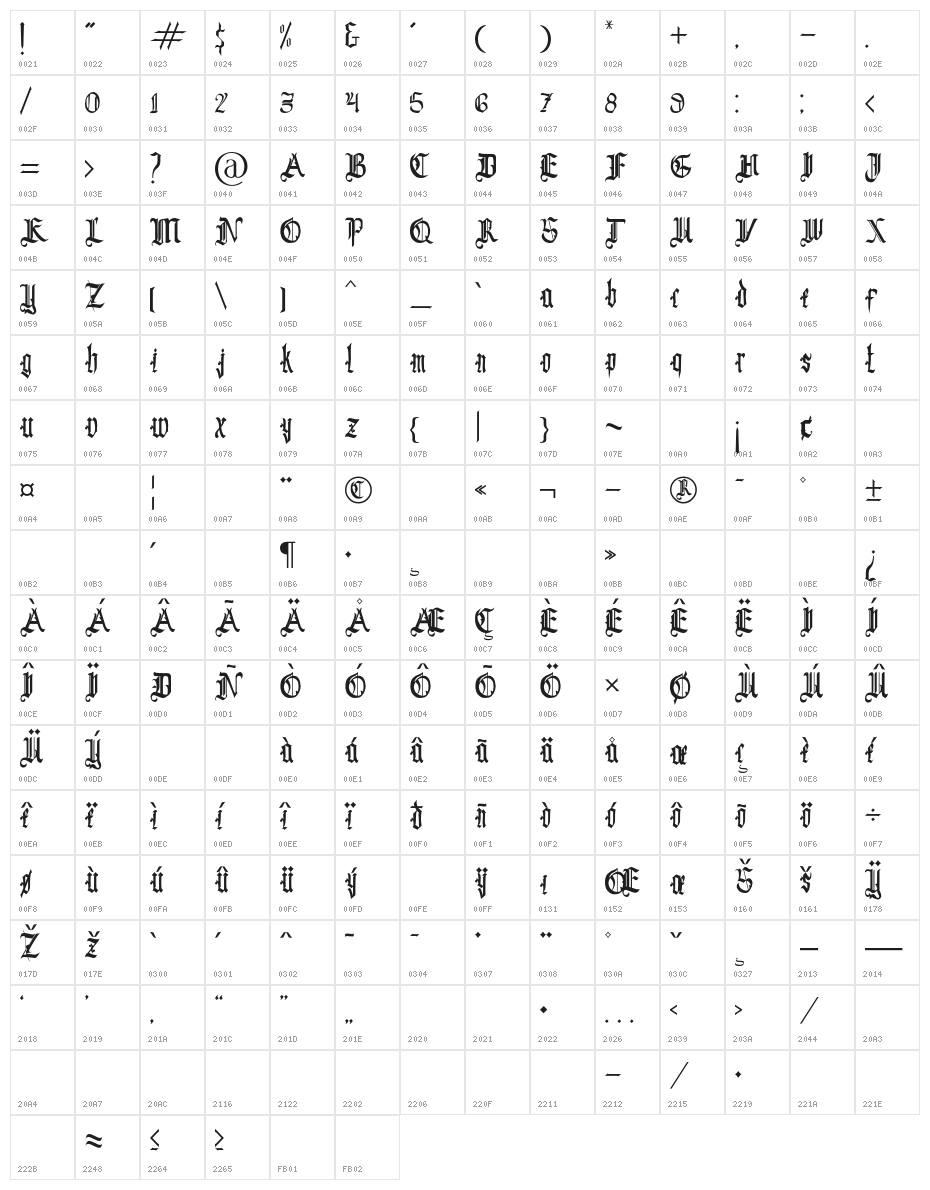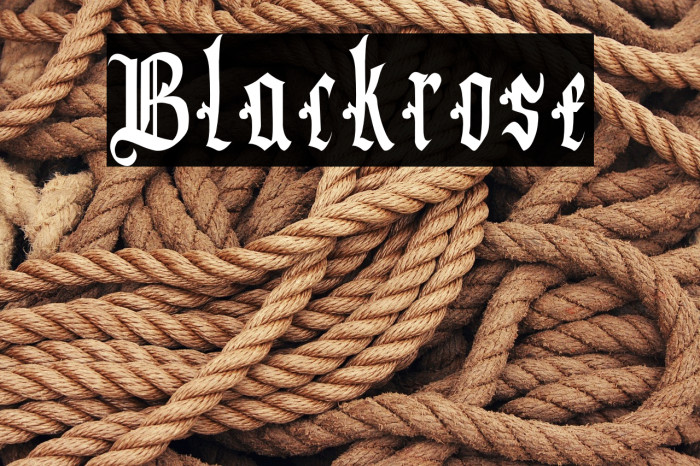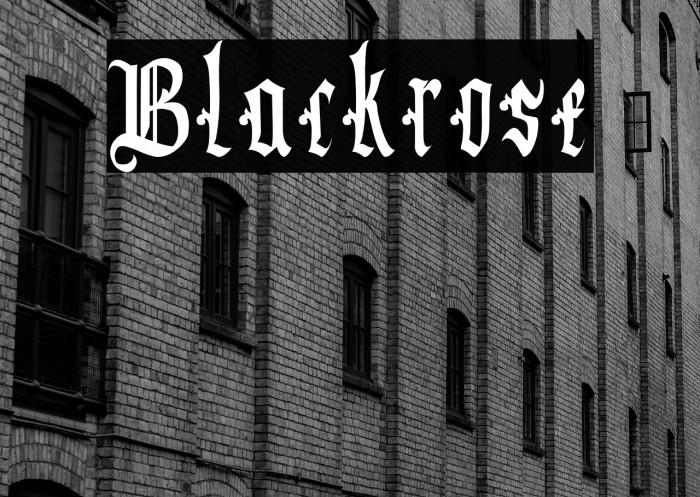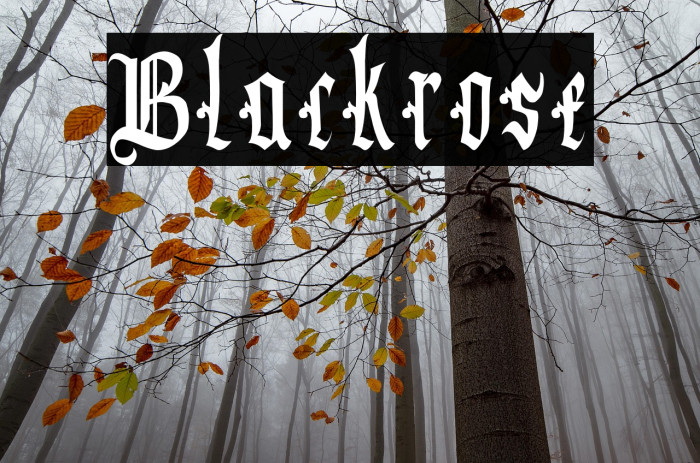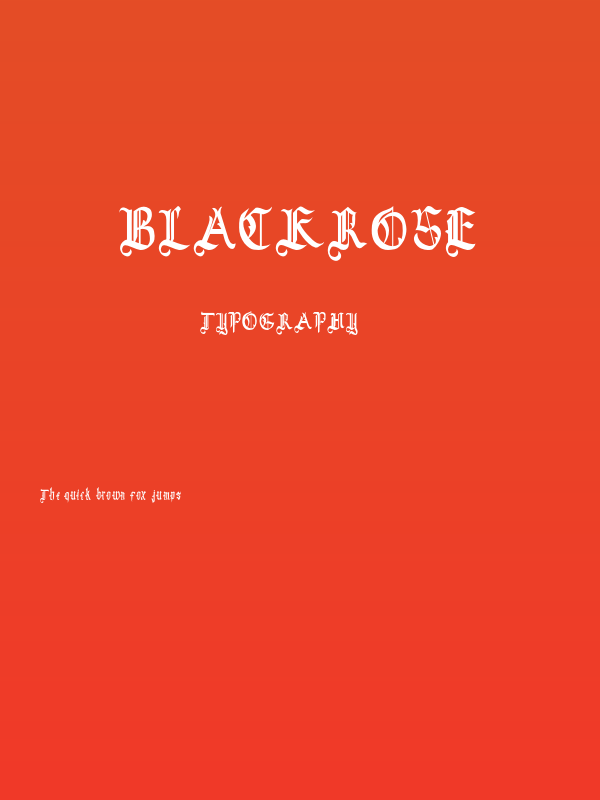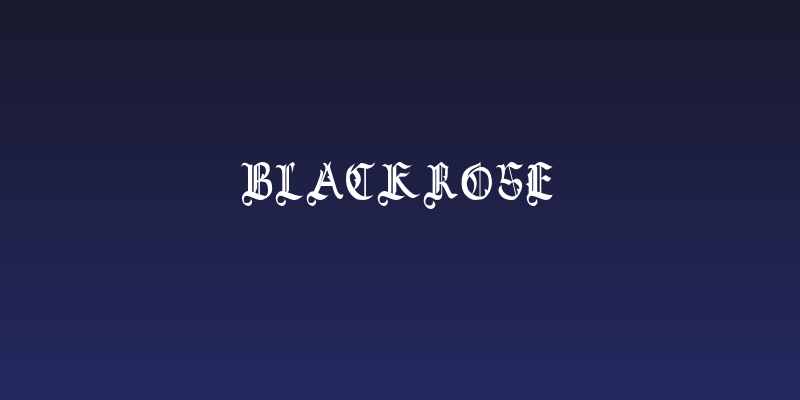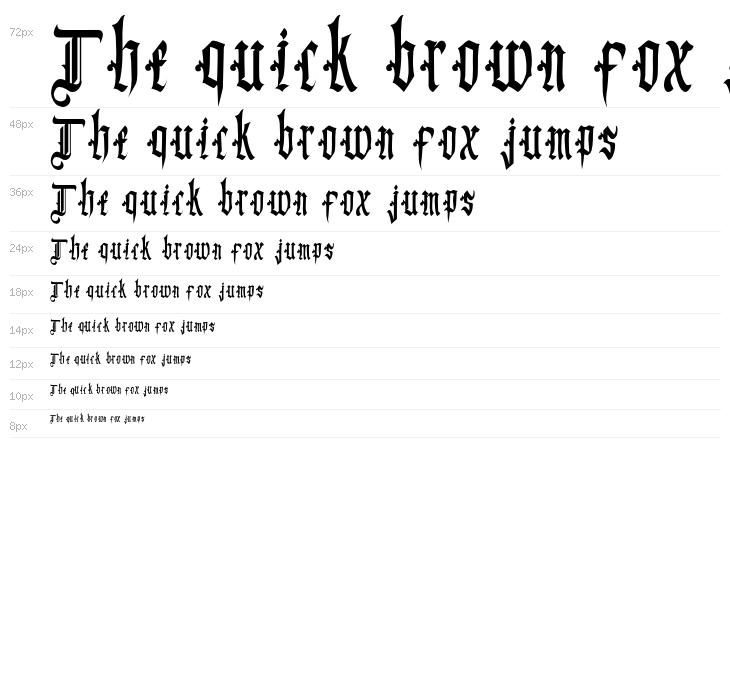
Blackrose Font
Blackrose Description
This font embodies a classic Blackletter style, characterized by its intricate and ornate design. The letters feature sharp, angular lines with pronounced serifs, giving them a gothic and medieval appearance. Each character is meticulously crafted with decorative elements that enhance its historical and artistic appeal. The uppercase letters are bold and commanding, while the lowercase letters maintain a consistent style with slightly more fluidity. The numerals and special characters are equally detailed, maintaining the overall aesthetic of the font. This font is ideal for projects that require a touch of elegance and tradition, such as formal invitations, certificates, or historical-themed designs.
| Proposed Projects | Ideal for formal invitations, certificates, historical-themed designs, and artistic projects requiring a traditional touch. |